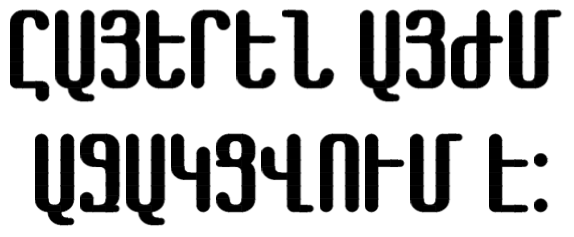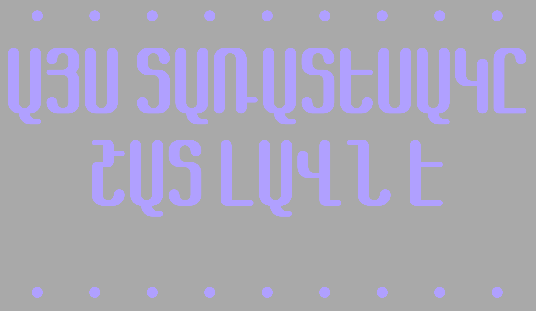
Now with Armenian fully supported, All that is left is extended cyrillic…
Nice Idea with the Ա design, I never would have thought of that
its so fun to look at with the rounded ends and all
Also, This will likely be the final version of this font. No new letters will be added to this…
I had to move the guide labeled TOP to the top of the uppermost brick cause the accents on the top were being clipped by certain sofware for some strange reason. Some of my other fonts (like Minecraftio for example) does not have this problem as far as I know…
I also plan on re-creating this font in FontForge…